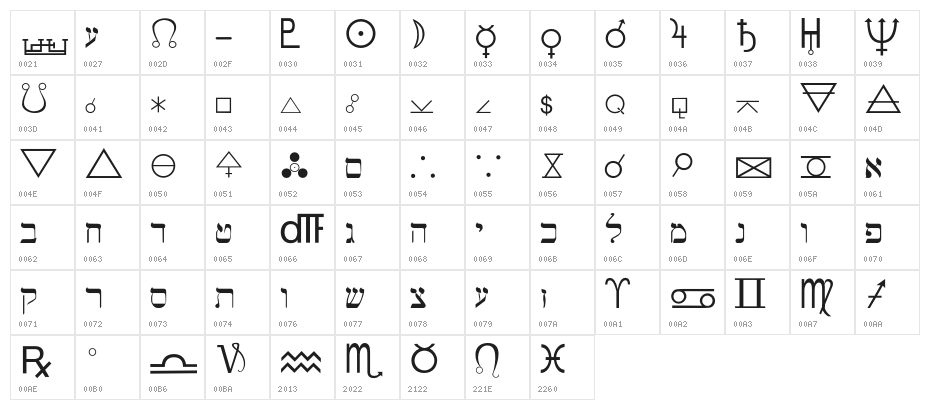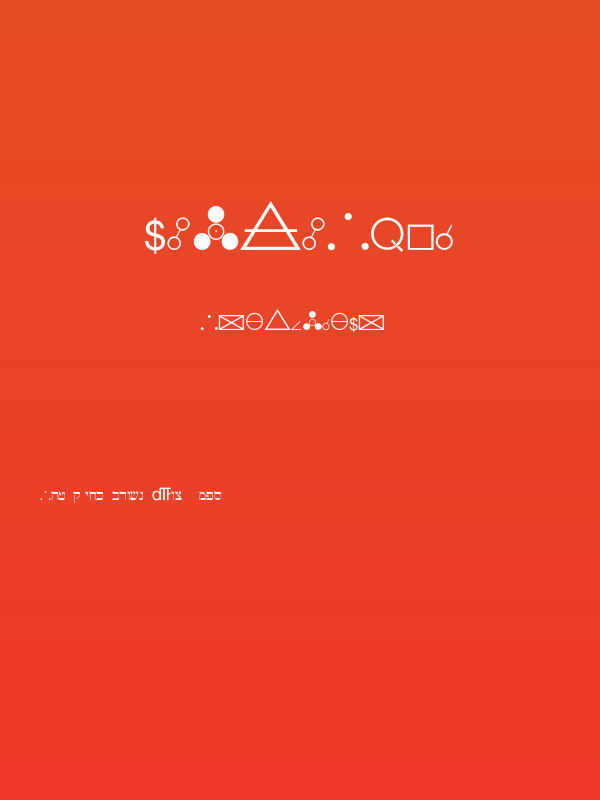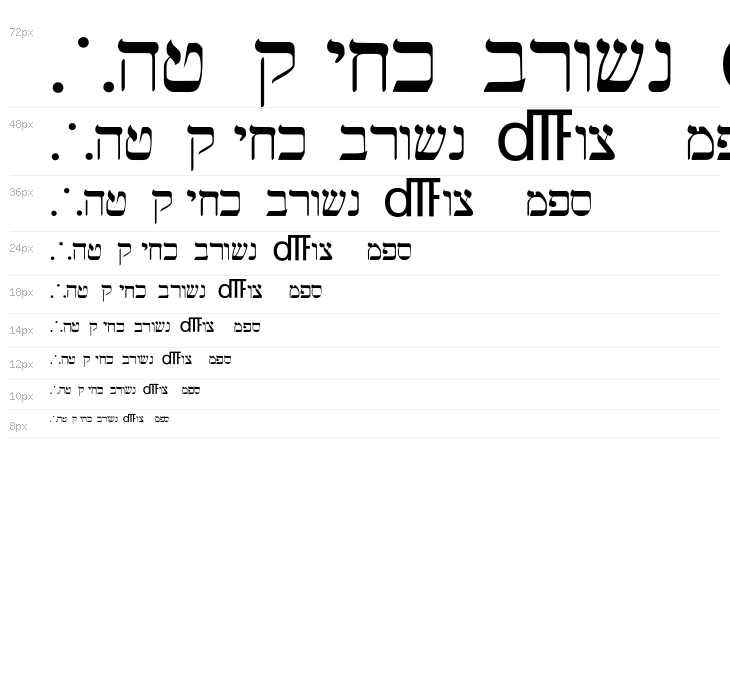
Hermetica Font
Hermetica Description
A highly decorative and eclectic font featuring a mix of alchemical, astrological, geometric, and Hebrew-inspired glyphs, with bold strokes and unique symbols. The characters are visually striking, with a combination of thick and thin lines, and many glyphs incorporate circles, triangles, and other geometric shapes.
Overall StyleDecorative, Esoteric, Mystical
Use CaseLogos, Posters, Titles, Themed Graphics
Proposed ProjectsOccult-themed posters, fantasy book covers, mystical branding, tarot cards, esoteric websites, and alternative music album art.